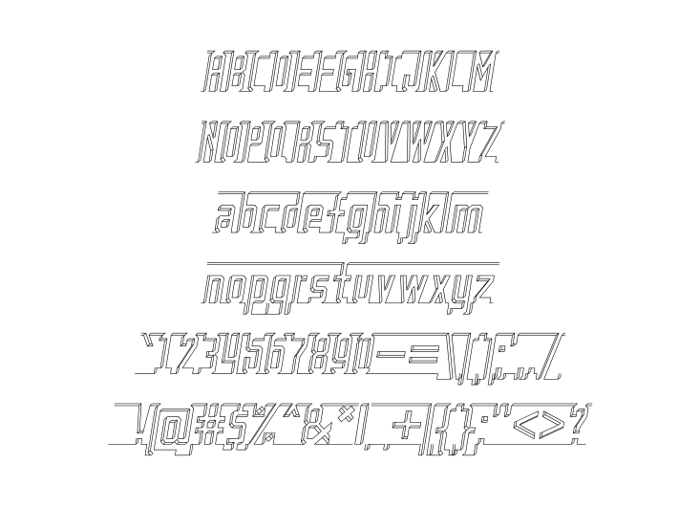
Bad Eyes Wireframe Font
Note: This font was inspired by an optical illusion that says "no sex causes bad eyes". It's dificult to read unless you look at it from distance. Use parenleft "(" and parenright ")" to start and end a sentence. Use asciitilde/tilde "~" to create suitable space.